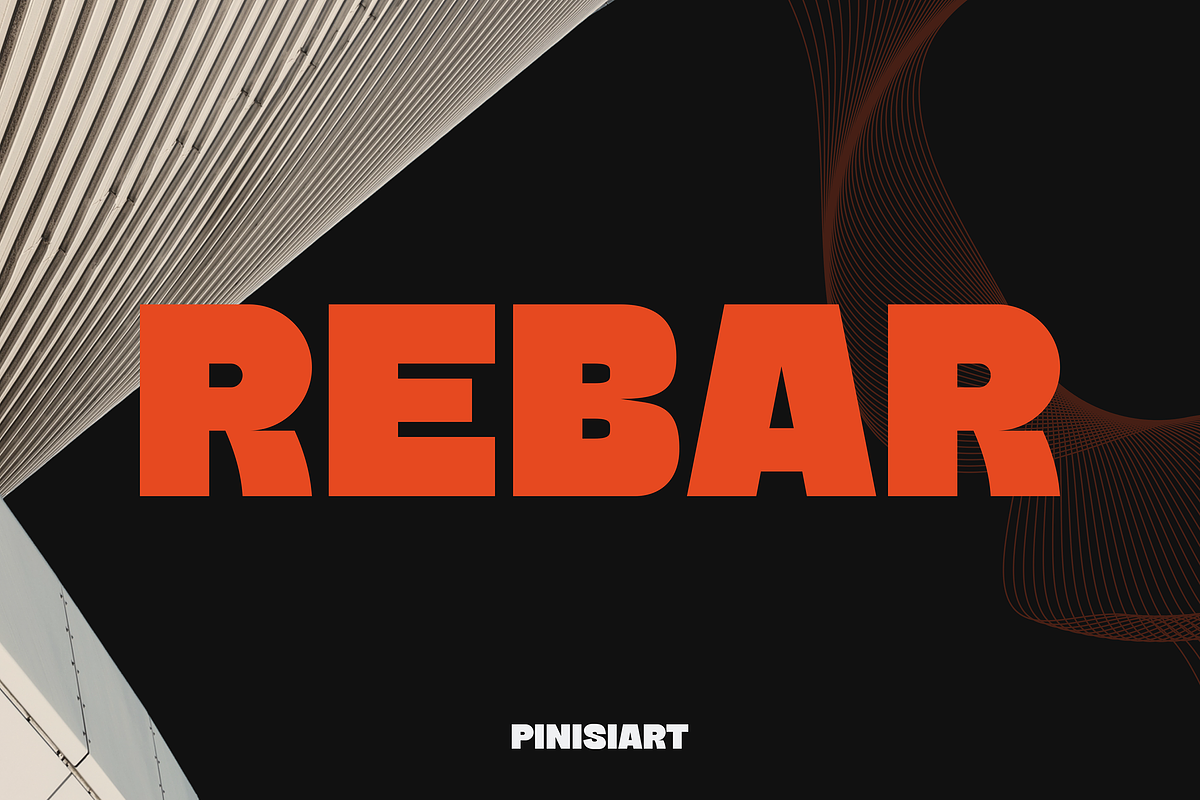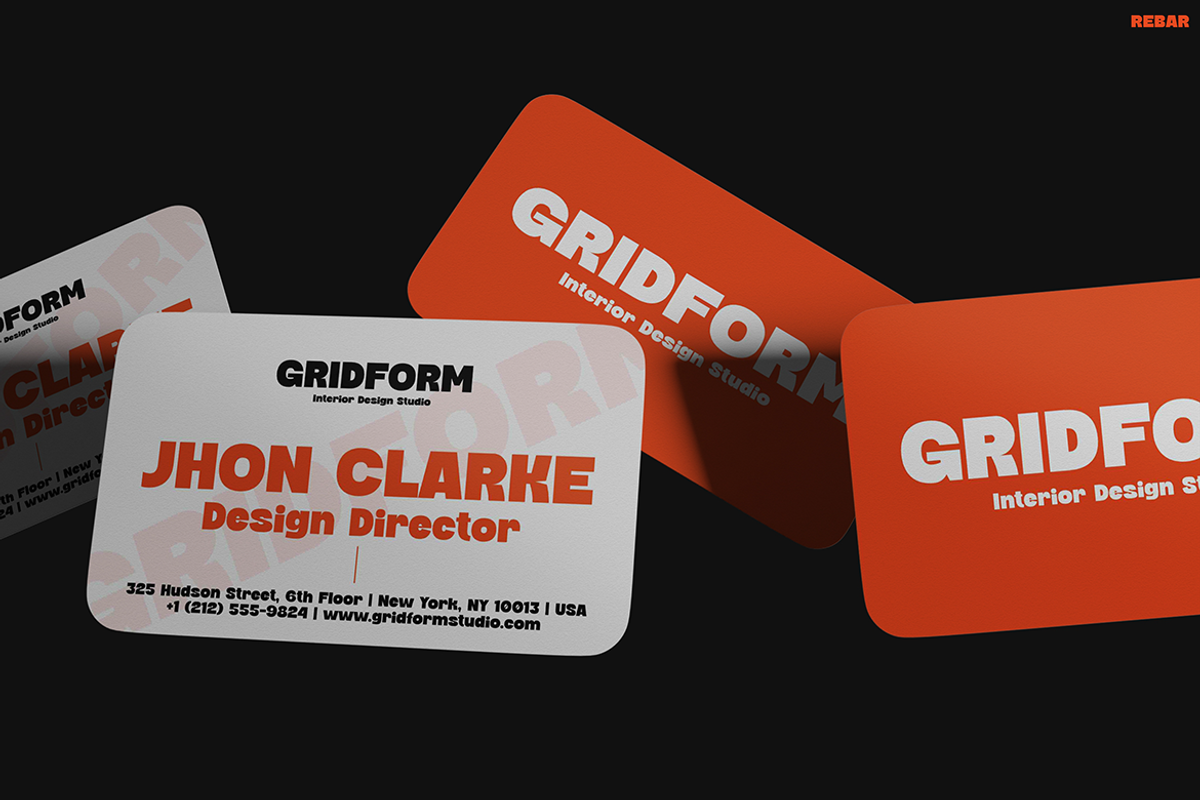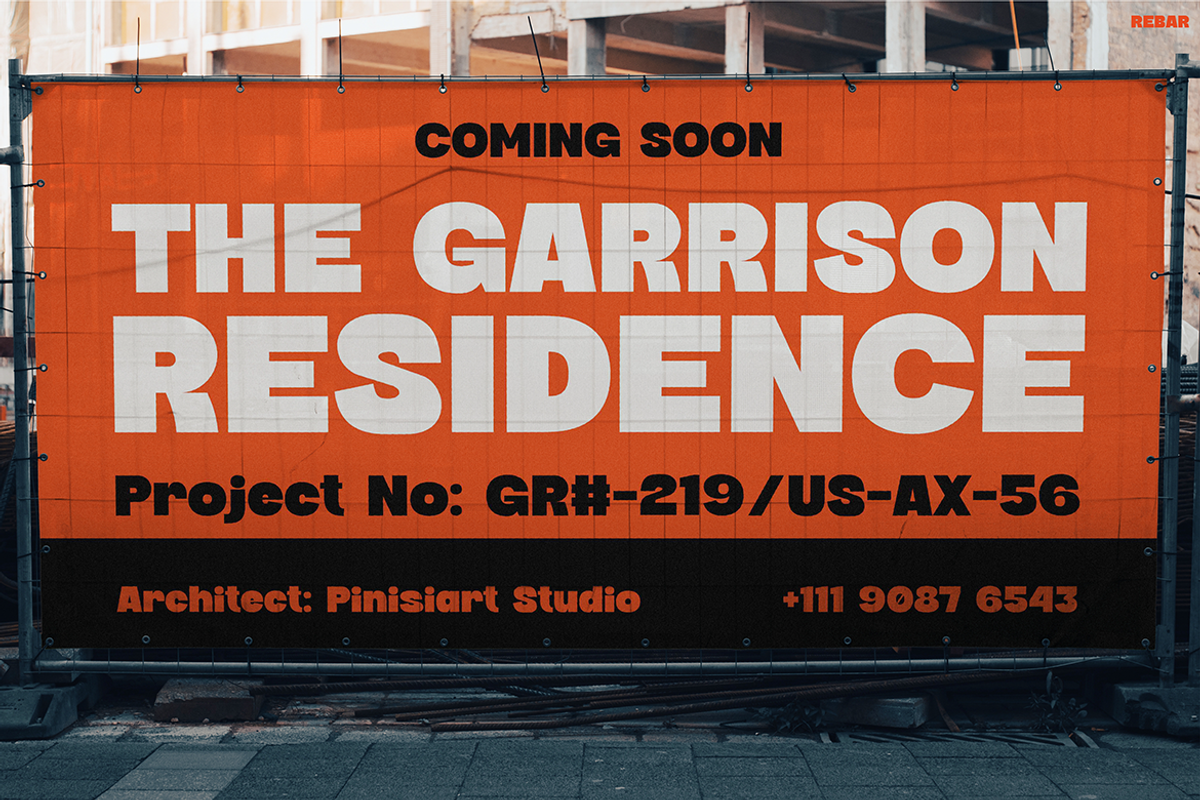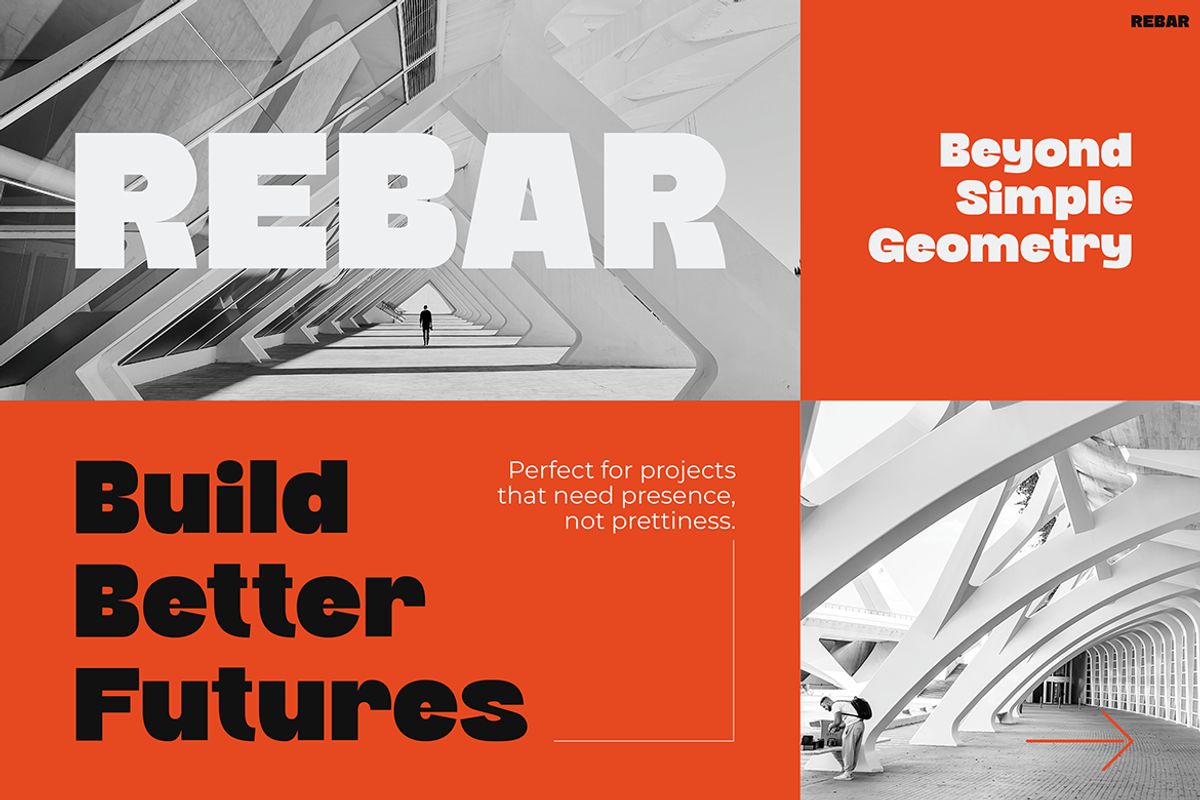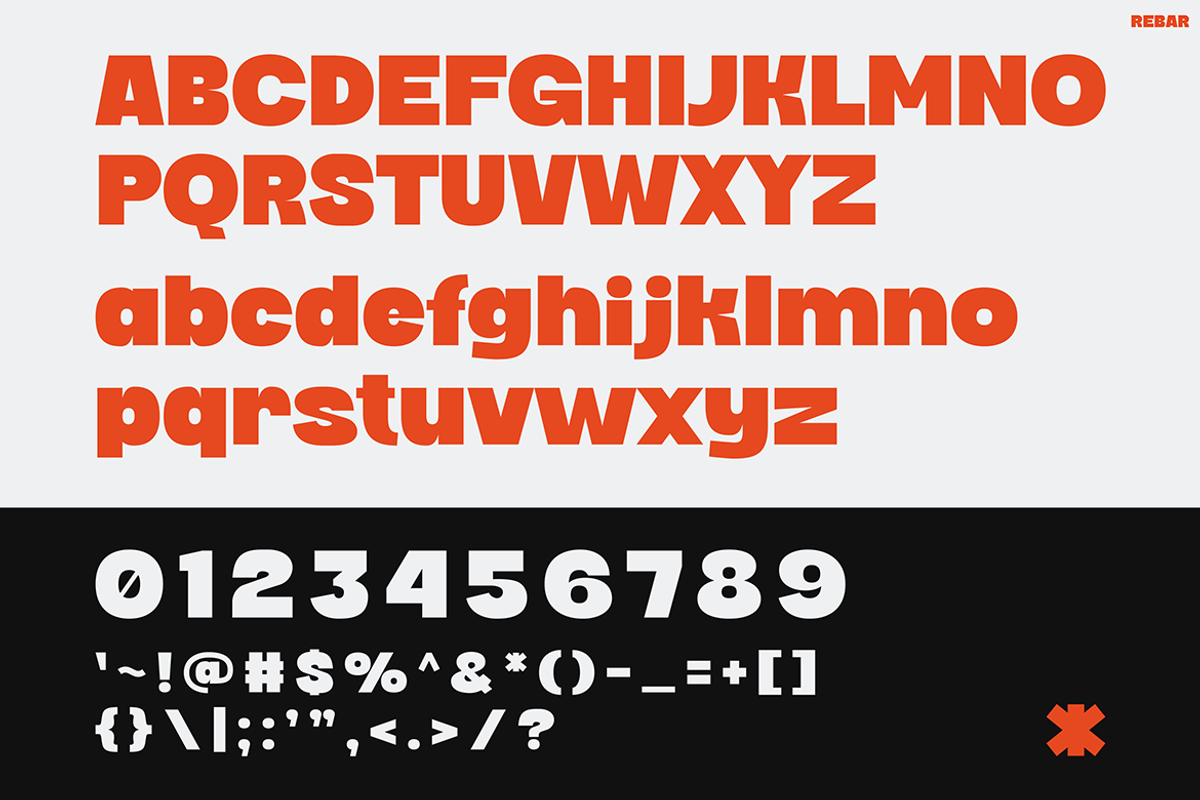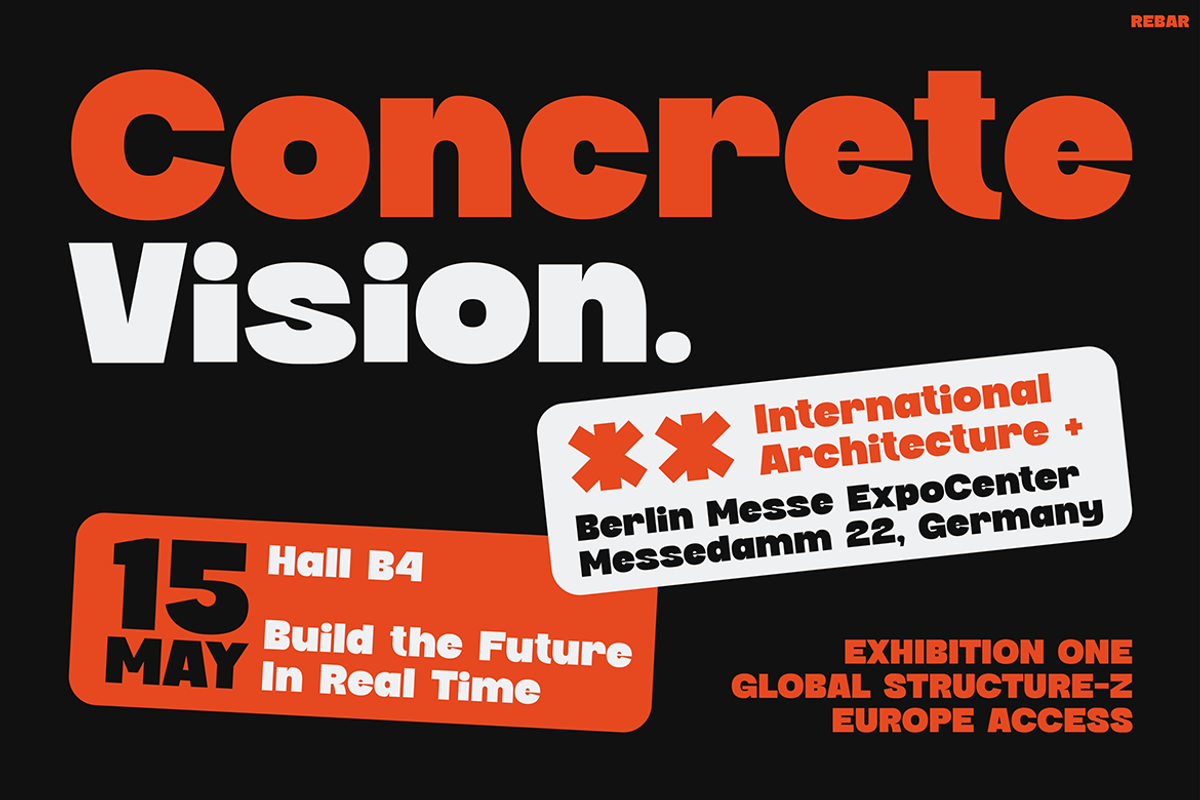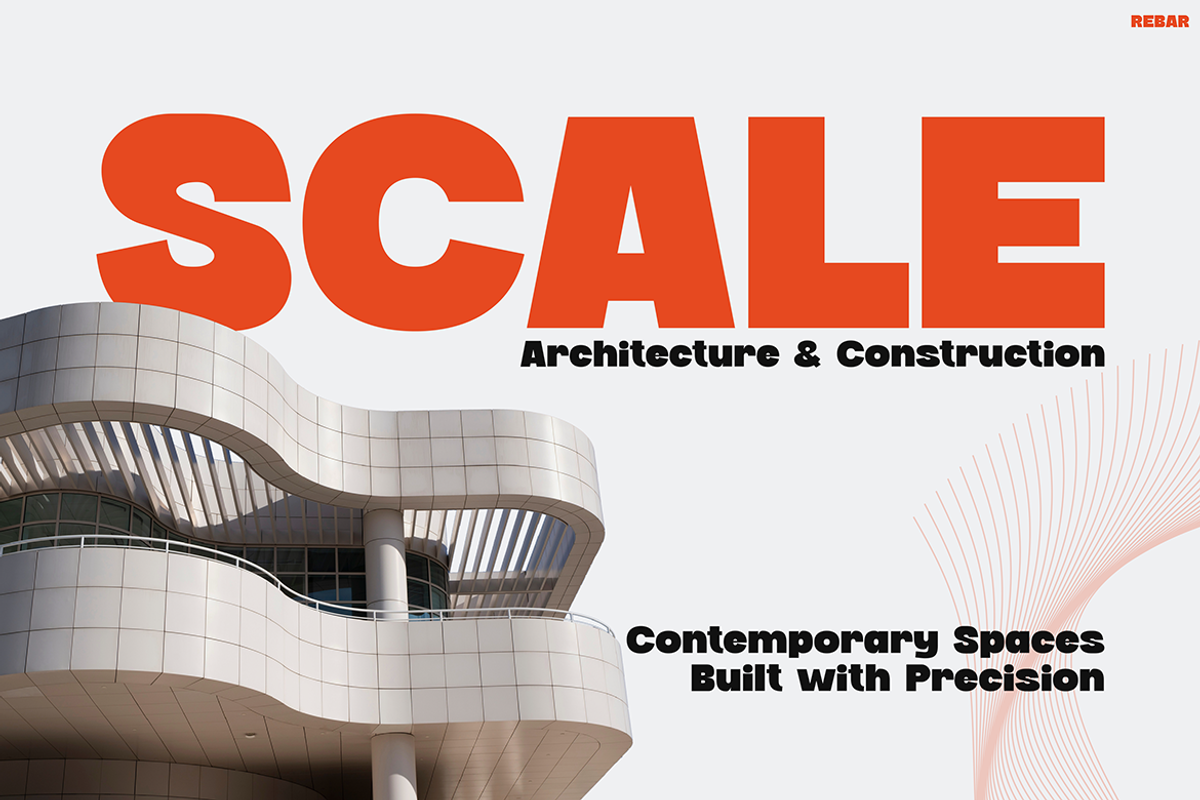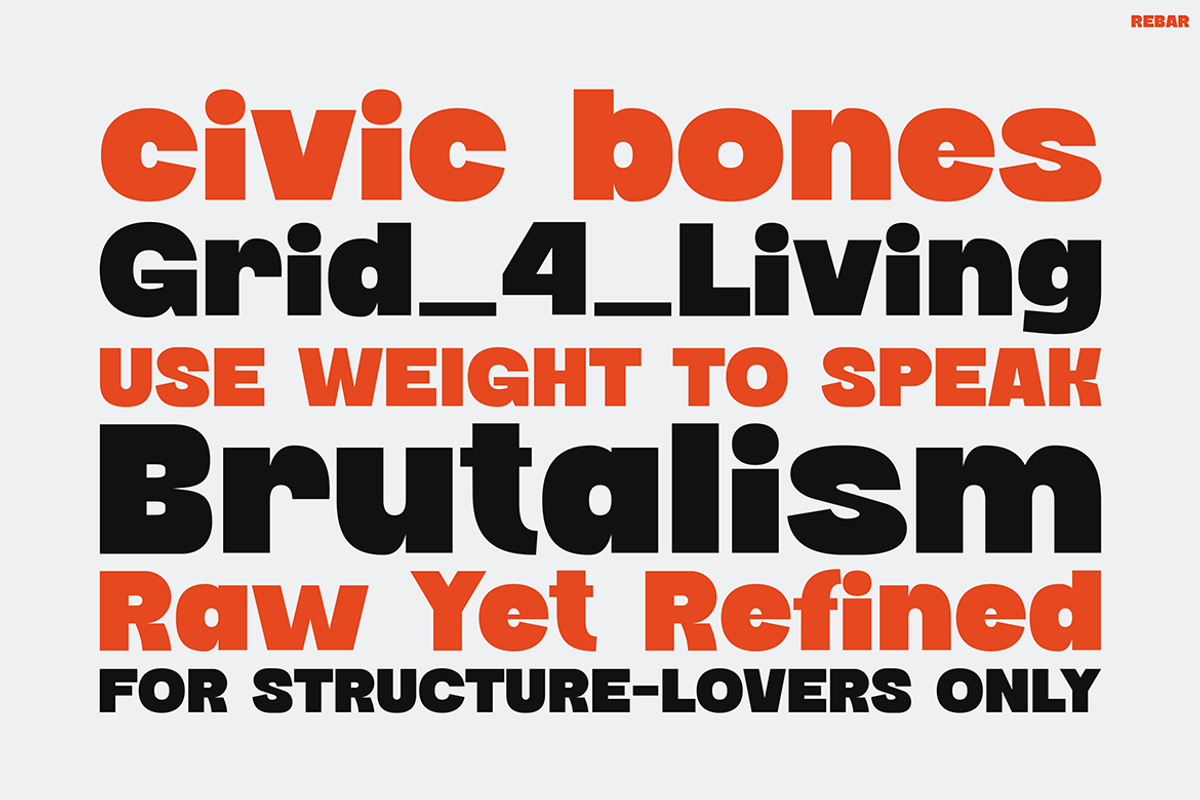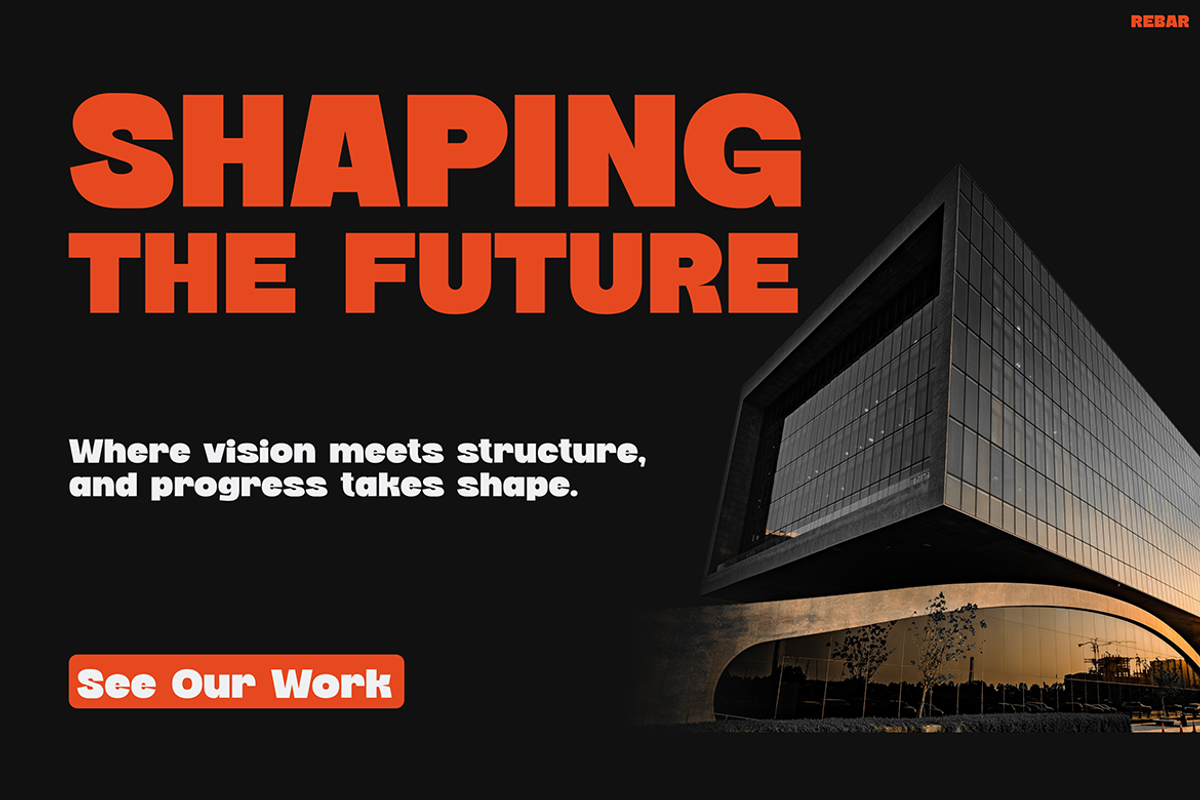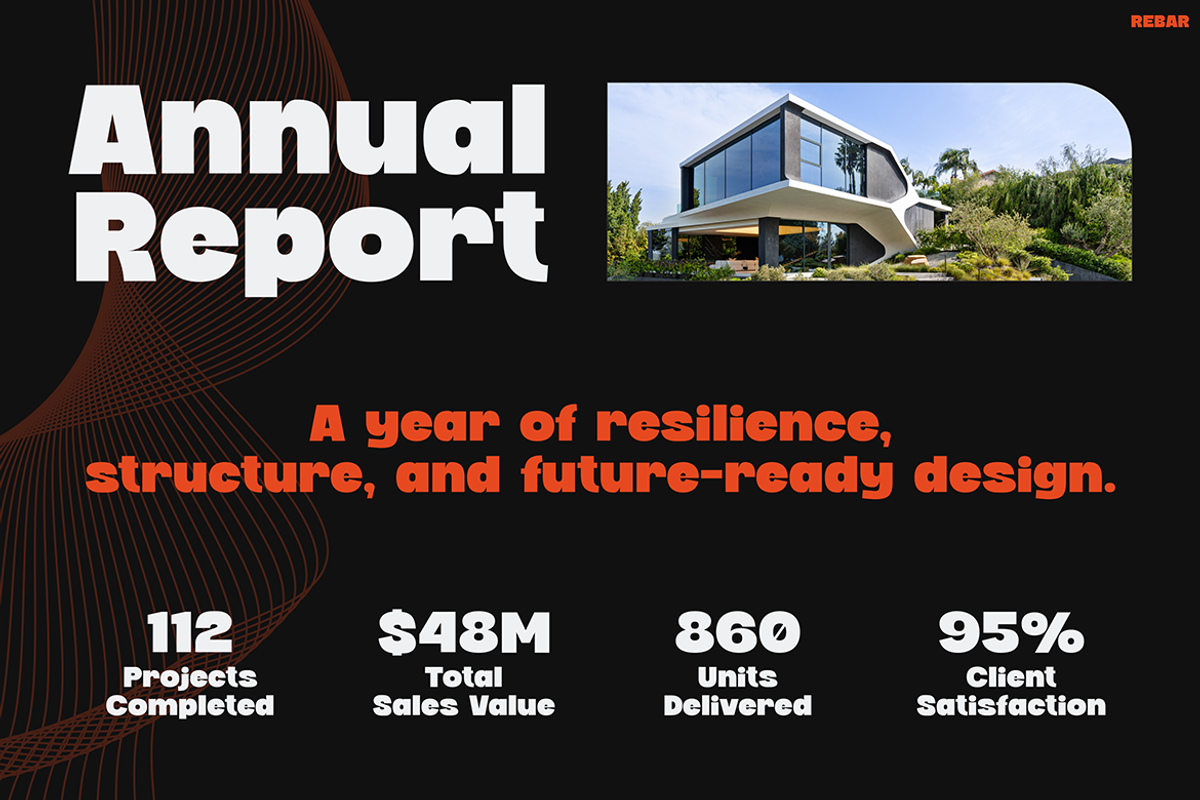
REBAR
Instagram Font REBAR – Where Brutalism Meets Bold Branding
Instagram Font REBAR is a striking typeface that seamlessly merges modern brutalism with strong visual clarity. At first glance, its thick, engineered letterforms radiate strength, while its clean geometric lines lend a sharp, contemporary appeal. Designed with architecture and structure in mind, REBAR doesn’t just communicate—it anchors your message with visual authority. Therefore, it’s not just another display font; it’s a foundation for visual storytelling that stands out in both digital and print.
Moreover, the font’s modular construction allows it to adapt across various media—whether you’re working on social posts, branding projects, or architectural portfolios. Each character reflects precision, offering a balance between raw weight and controlled design. For that reason, REBAR excels in grabbing attention without sacrificing readability. Its visual rhythm echoes the aesthetics of industrial design, making it a perfect companion for projects that value clarity, durability, and creative boldness.
In addition, REBAR’s stylized structure fits perfectly with forward-thinking layouts. Whether used in editorial spreads or presentation slides, its dynamic character makes every headline feel intentional. Beyond aesthetics, its functionality also shines—delivering high legibility even in complex compositions.